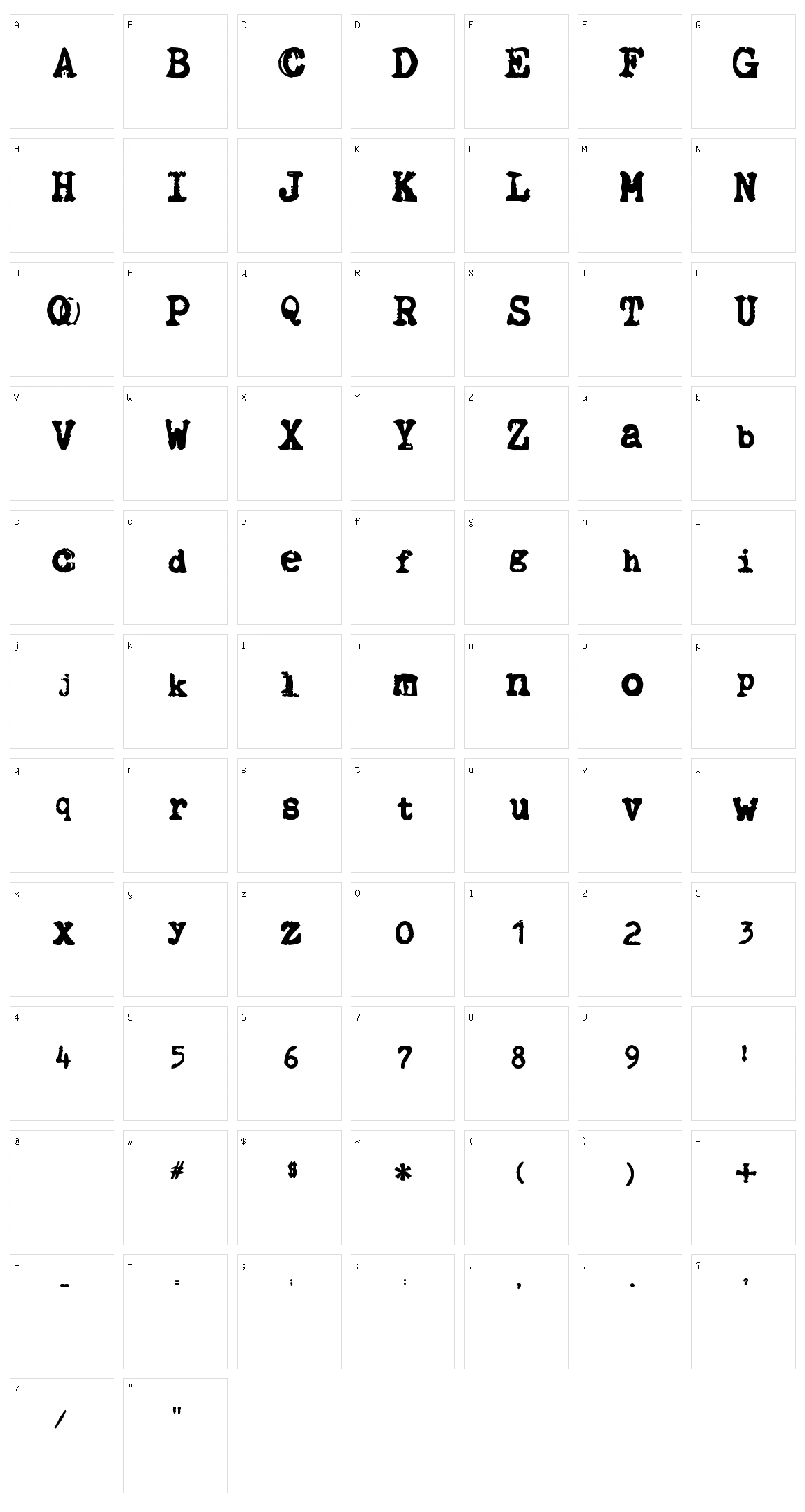
The free font The Libertines is carefully designed by Gersan Borge A, showcasing a thoughtful balance of creativity and usability and falls under the Typewriter font style. When you download the ZIP file, it contains only 291.38 KB of font files, making it lightweight and quick to download. Please review the license details below to understand permitted usage and distribution rights. If license information is not available, we recommend using this font for personal projects only or contacting the author directly for commercial usage permissions.